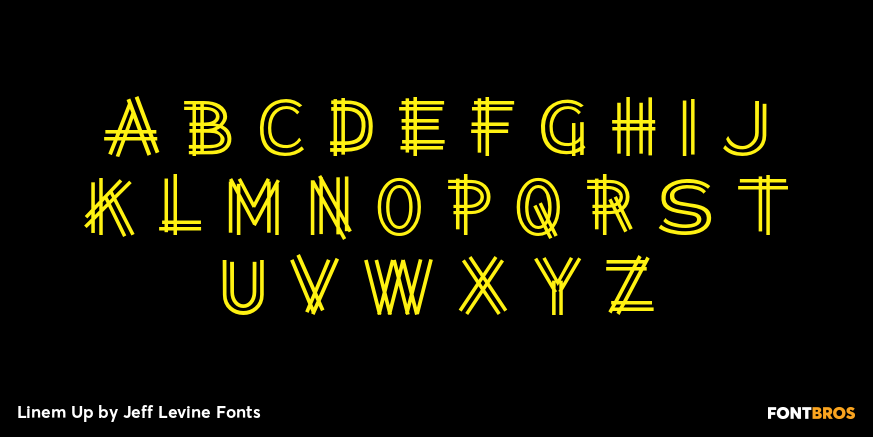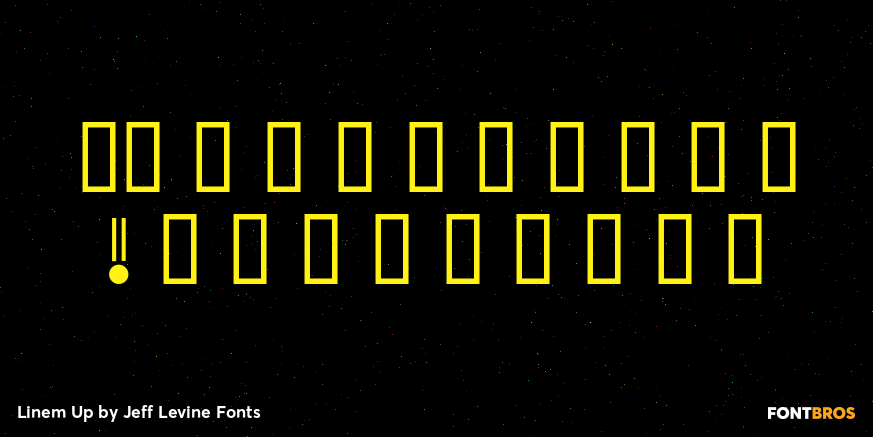
Linem Up
Linem Up JNL is based on one of Alf R. Becker's alphabets for Signs of the Times magazine. With A-Z only and basic punctuation, it's best used in very limited text at larger point sizes. Thanks to Tod Swormstedt of ST Publications (and the curator of the American Sign Museum in Cincinnati, Ohio) for providing the reference material.